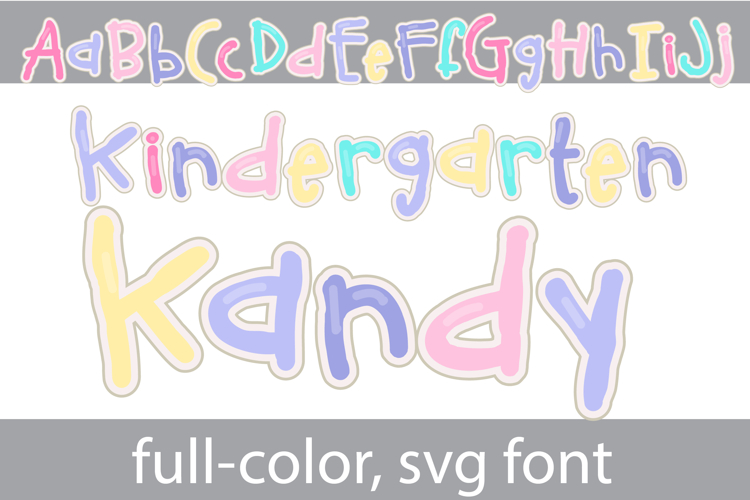
Kindergarten Kandy Color Font
This full-color, pastel-colored font features a toggled, youthful lettering style. There is an alt case of each letter with a different color combination.